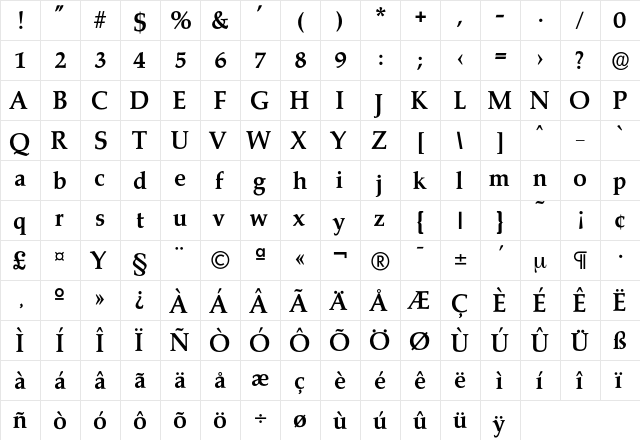
Marathon-DemiBold Regular
Design Context for Marathon-DemiBold Typeface
Marathon-DemiBold offers clean, dependable letterforms without strong stylistic allegiance, making it a practical choice for designers who need flexibility. The heavy weight commands attention and anchors typographic hierarchies.
Pro Tip: Use Marathon-DemiBold in both headline and body roles to test its range before committing to a single application.